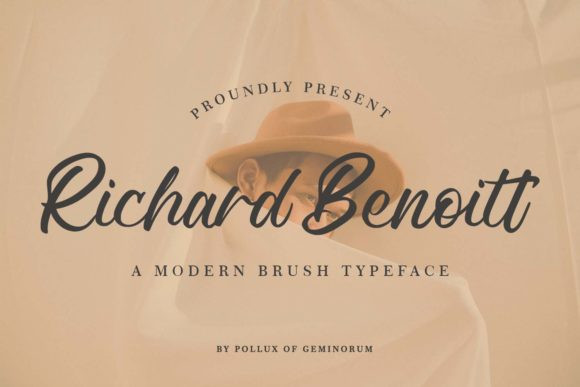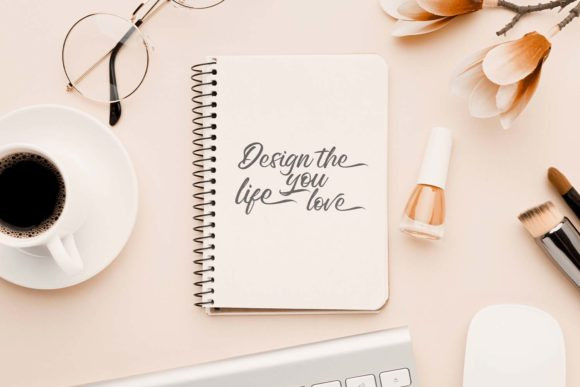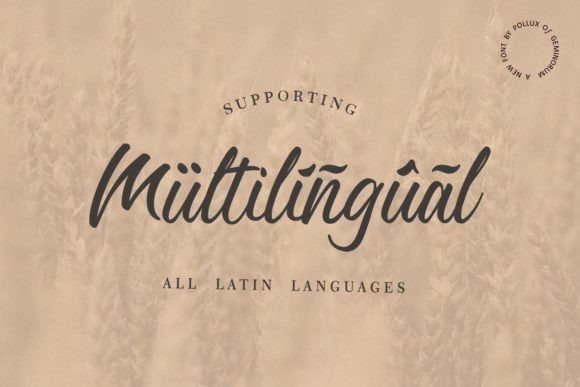
Richard Benoitt Font
Richard Benoitt FontRichard Benoitt feels equally charming and elegant. It looks stunning on wedding invitations, thank you cards, quotes, greeting cards, logos, business cards and every other design which needs a handwritten touch.
This font is PUA encoded which means you can access all of the glyphs and swashes with ease! It features a varying baseline, smooth lines, gorgeous glyphs and stunning alternates.